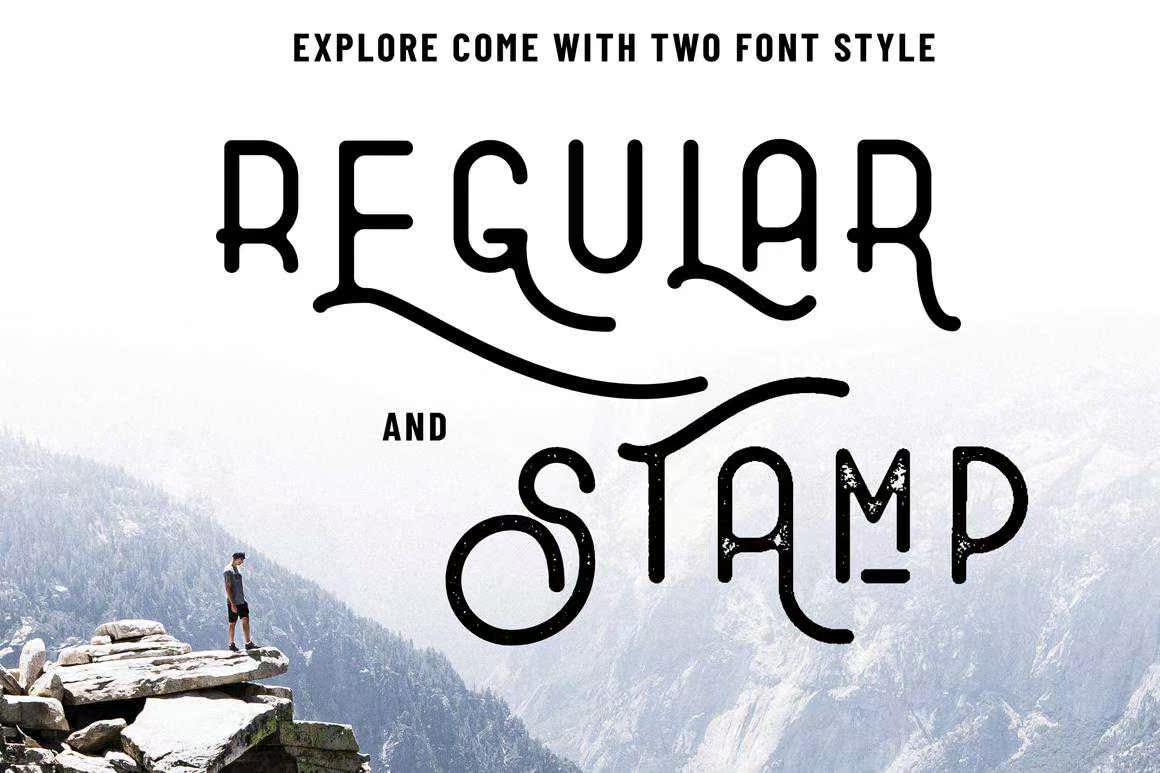
Explore.astylish typeface with two style,regular and oughstamp.exploreGod for Clothing Design,quotes and Branding.Explore.astylish typeface with two style,regular and oughstamp.exploreGod for Clothing Design,quotes and Branding。